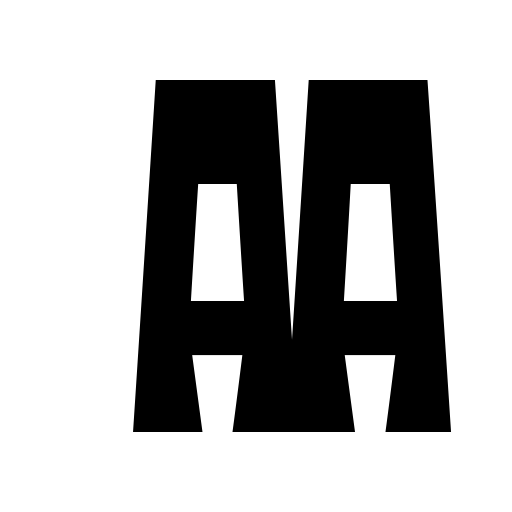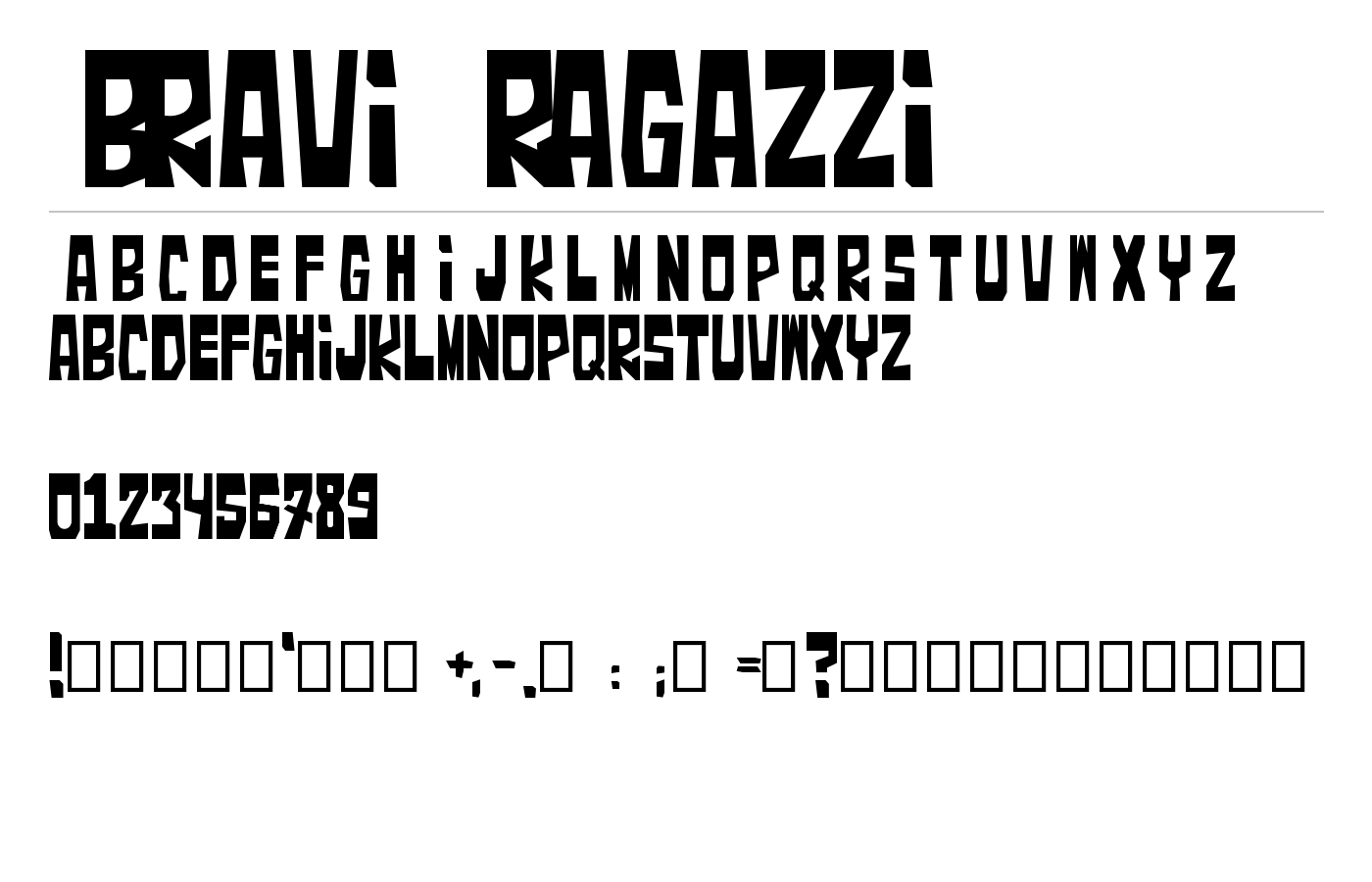
Bravi Ragazzi is a bold, condensed sans serif font with a distinct, playful personality conveyed through its irregular, sharp-edged letterforms and quirky details. Its strong presence and unique style make it an excellent choice for eye-catching headlines, posters, and branding projects that seek a modern, energetic, and unconventional vibe. This font works best where a strong, creative impact is needed, adding character and a standout look to any design.
Bravi Ragazzi Font
About Bravi Ragazzi Font
| Font family | Bravi Ragazzi Font |
| Designer | Salvatore Maruccio |